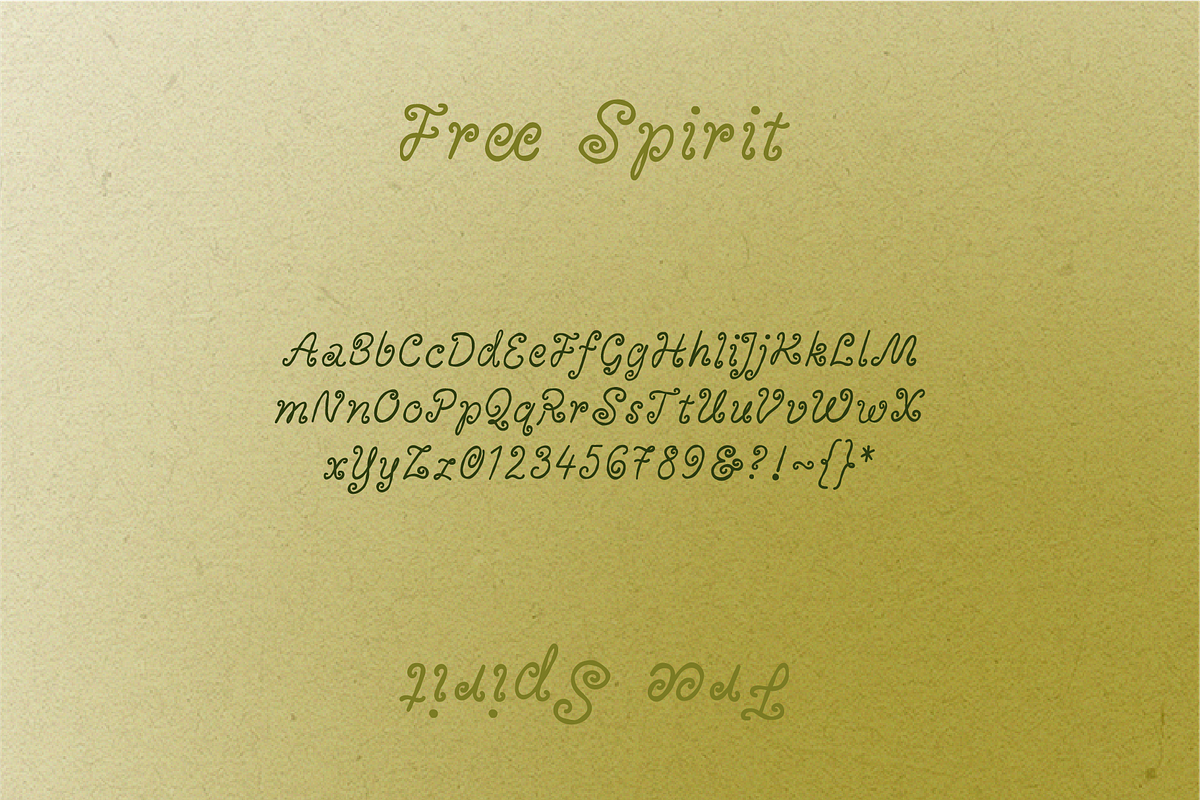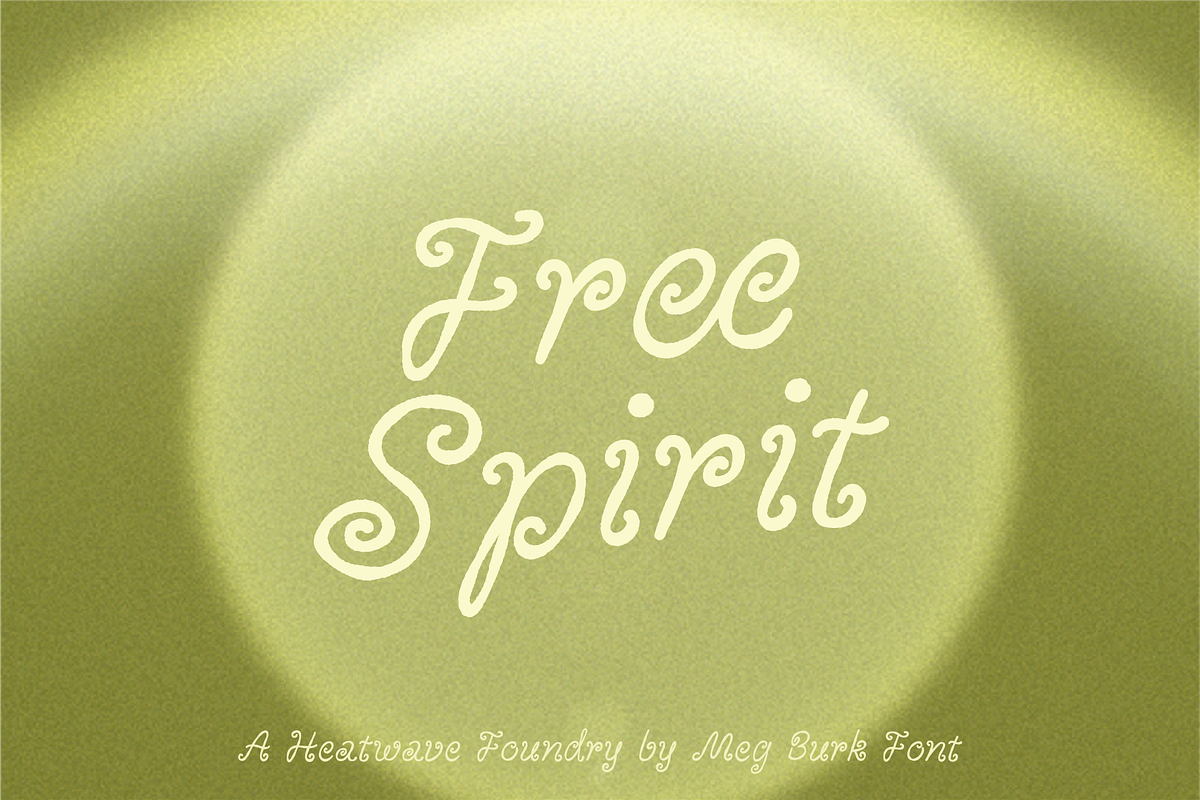
Free Spirit - Swirly Italics
A swirly italic hand written font for free spirits, ocean lovers, sea sirens, and shell collectors. Handmade, textural, vibrant script-adjacent letters swirl and combine. A few ligatures are included.